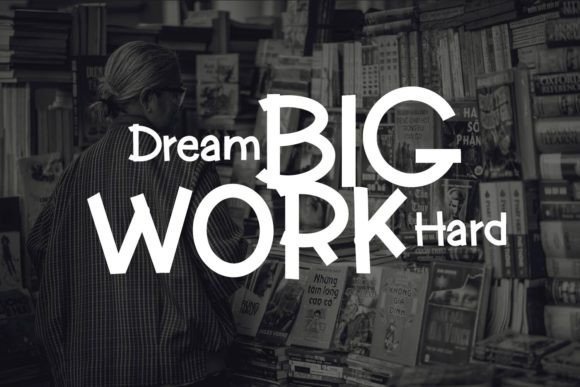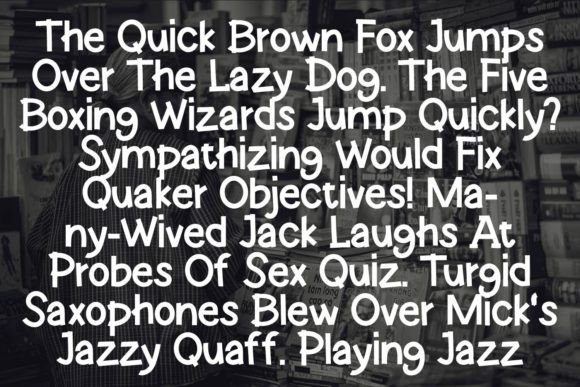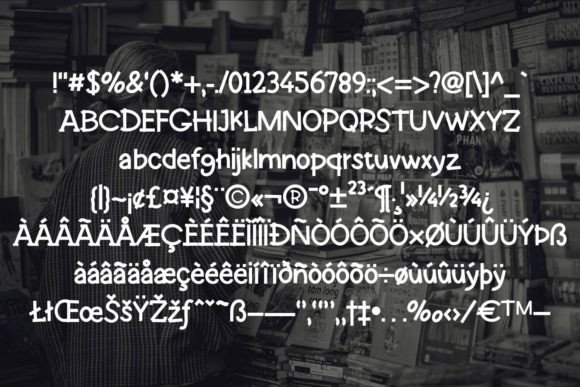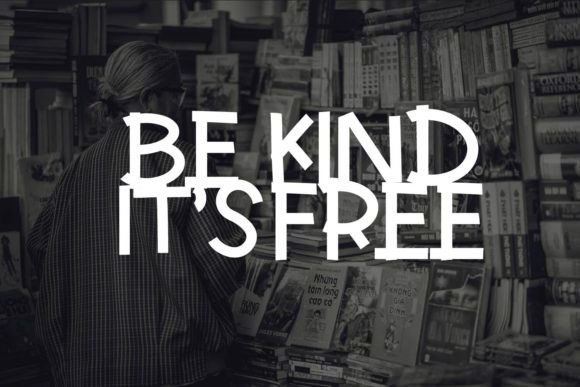
Introducing Brandall Font: The Quirky Display Font for Creative Minds
Are you tired of using the same old fonts for your design projects? Look no further than Brandall Font, a unique and interesting display font that’s sure to add a touch of personality to your work. With its quirky charm and versatility, Brandall Font is perfect for designers and crafters looking to make a statement.
A Little Bit Quirky, A Lot of Character
Brandall Font is a one-of-a-kind display font that’s sure to turn heads. Its quirky design gives it a distinctive character that’s both playful and sophisticated. Whether you’re working on a logo, a poster, or a website, Brandall Font is sure to add a touch of whimsy and fun to your design.
Adapts to a Wide Variety of Contexts
One of the best things about Brandall Font is its incredible versatility. This font looks incredibly adept on a wide variety of contexts, from bold headlines to subtle captions. Whether you’re working on a fashion brand, a food blog, or a tech startup, Brandall Font is sure to fit right in.
Brandall Font is a dream come true for designers and crafters who are looking to add a personal touch to their work. With its unique character and adaptability, this font is perfect for a wide range of projects, including:
- Website headers and titles
- Invitations and party decorations
What Makes Brandall Font So Special?
So what sets Brandall Font apart from other display fonts on the market? Here are just a few things that make it so special:
- Unique character: Brandall Font has a one-of-a-kind design that’s both quirky and charming.
- Versatility: This font looks great in a wide range of contexts, from bold headlines to subtle captions.
- Playful sophistication: Brandall Font has a playful, whimsical feel that’s balanced by a sophisticated, elegant look.
How to Use Brandall Font in Your Designs
Ready to give Brandall Font a try? Here are a few tips for incorporating it into your designs:
- Use it as a headline: Brandall Font is perfect for bold, eye-catching headlines that demand attention.
- Pair it with a simple font: For body text, pair Brandall Font with a simple, easy-to-read font to create a striking contrast.
- Experiment with colors: Brandall Font looks great in a wide range of colors, so don’t be afraid to get creative and try out different hues.
Brandall Font is a unique and interesting display font that’s sure to add a touch of personality to your design projects. With its quirky charm, versatility, and playful sophistication, this font is perfect for designers and crafters looking to make a statement. So why settle for boring, generic fonts when you can add a little excitement to your work with Brandall Font?